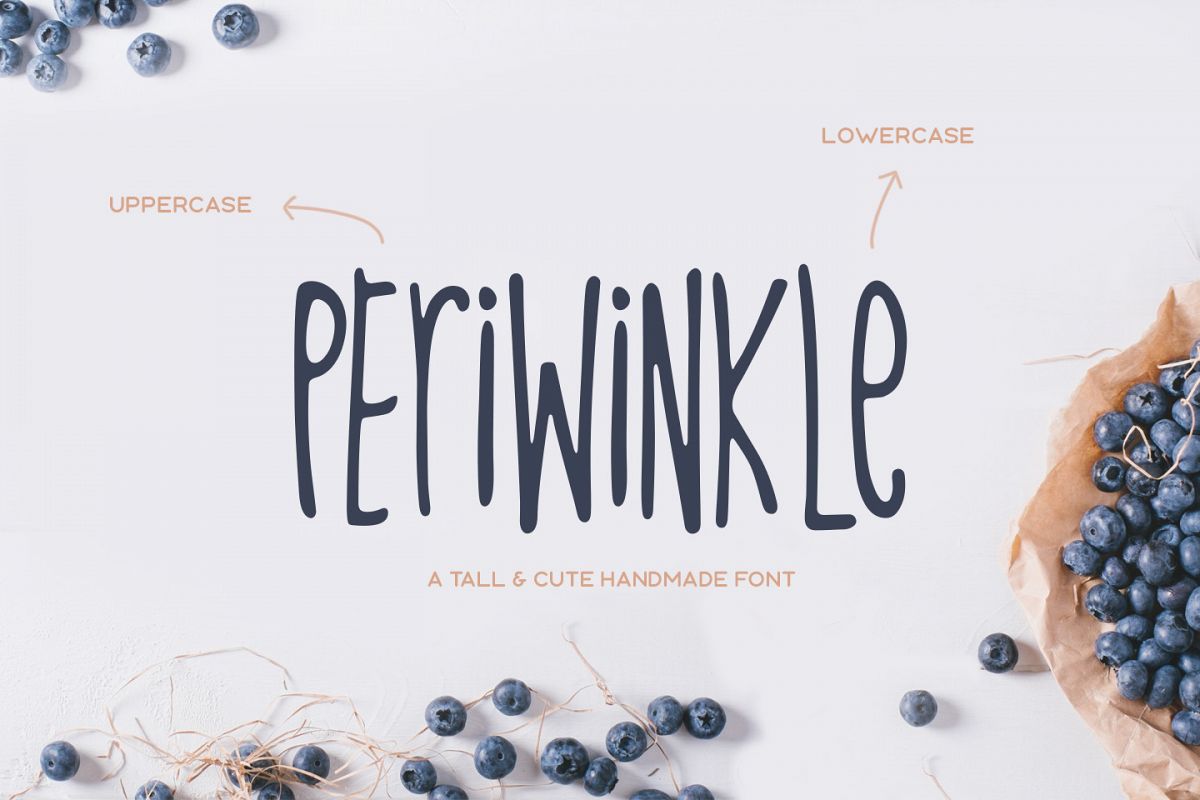
Periwinkle Typeface
Periwinkle
Periwinkle is a cute and tall handmade font that's great for personable titles. It includes uppercase multilingual characters, alternate characters which can be toggled via caps lock, punctuation and numbers.